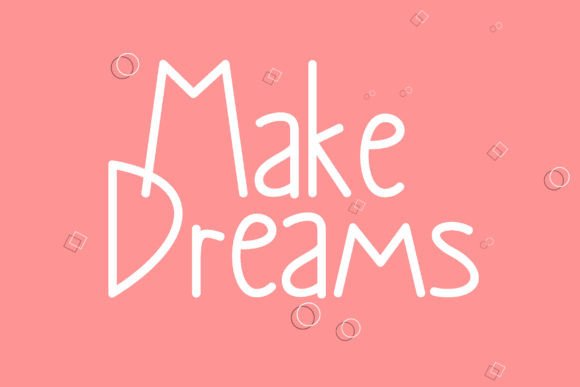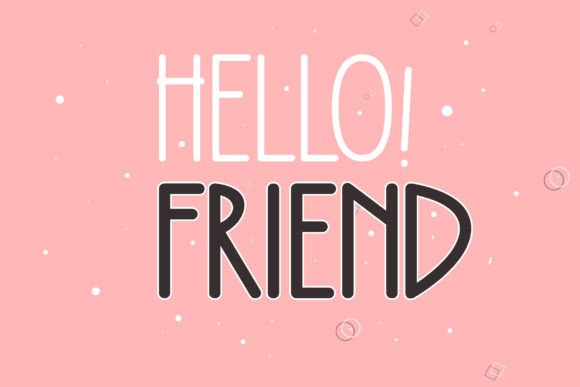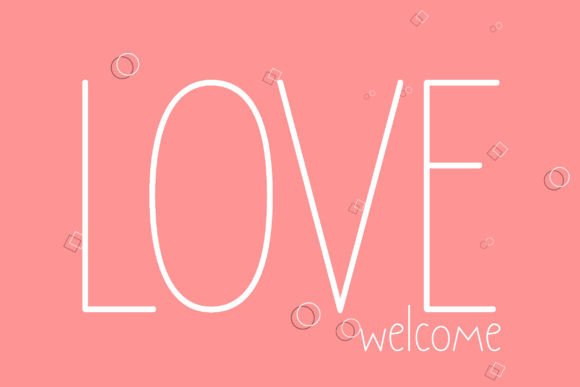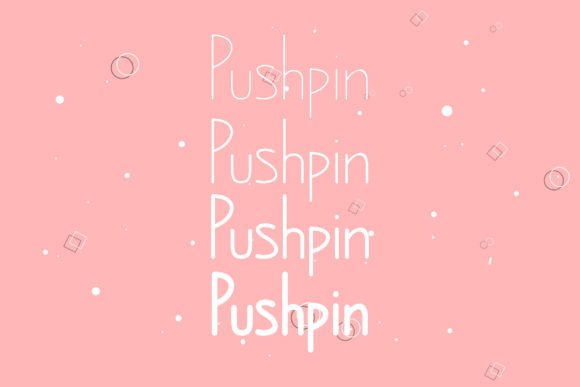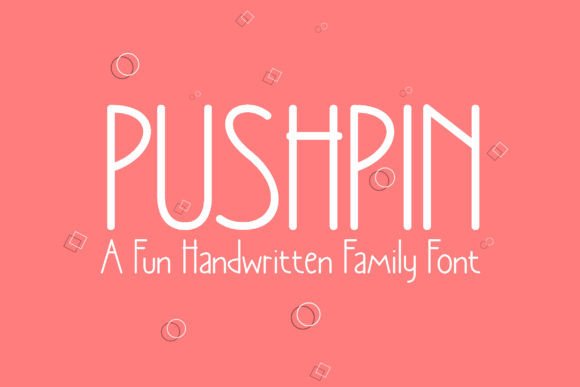
Introduction to Pushpin Font Font
Fonts play a crucial role in design, and the Pushpin Font font is a typeface that brings both character and versatility to any project. Whether you’re working on a branding project, a website, or a print design, the Pushpin Font font offers a unique style that can elevate your work.
Pushpin a modern and friendly sans-serif font, is a delightful blend of whimsy and simple.
Its playful curves and rounded edges bring a sense of warmth to any design Make your mark with this charming and refined font.
Key Features of Pushpin Font Font
Why Choose Pushpin Font Font?
The Pushpin Font font is more than just a typeface – it’s a design tool that helps you communicate your message with style and clarity. Its unique character set and versatile design make it suitable for a wide range of applications, from elegant invitations to bold headlines.
With its carefully crafted letterforms and balanced proportions, the Pushpin Font font ensures readability and visual appeal across all mediums.
What makes Pushpin Font font special?
The Pushpin Font font stands out with its unique design, exceptional readability, and versatility across various design applications.